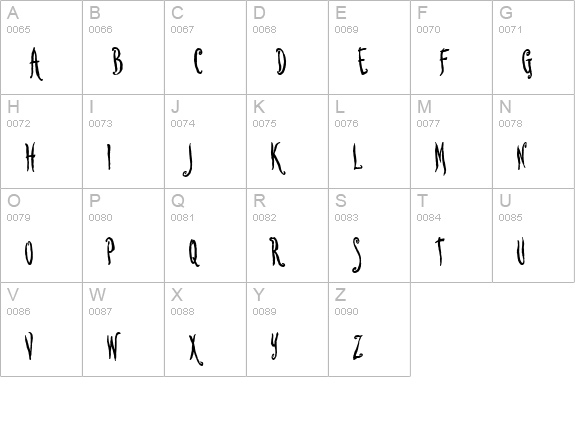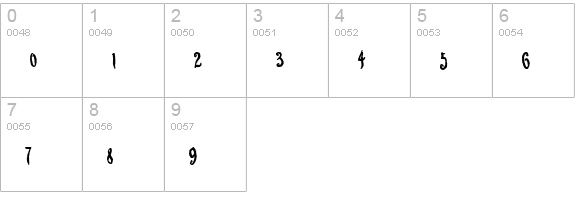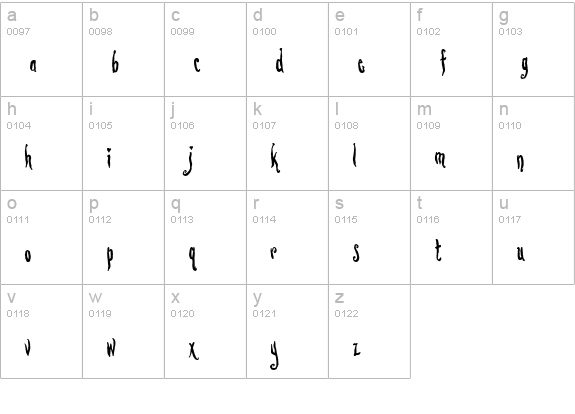
Lovesick AOE Font Details
Lovesick AOE font is a whimsical and charming typeface that exudes a sense of romance and nostalgia. With its delicate curves and playful swirls, this font is perfect for adding a touch of love and sweetness to any project. Whether you're designing wedding invitations, greeting cards, or branding materials, Lovesick AOE font will bring a sense of warmth and affection to your creations. The best part? Lovesick AOE font is completely free to download at FontsMarket.com. This means you can easily access this beautiful font and use it in your designs without any cost. So go ahead, spread the love with Lovesick AOE font and watch your projects come to life with its enchanting style.